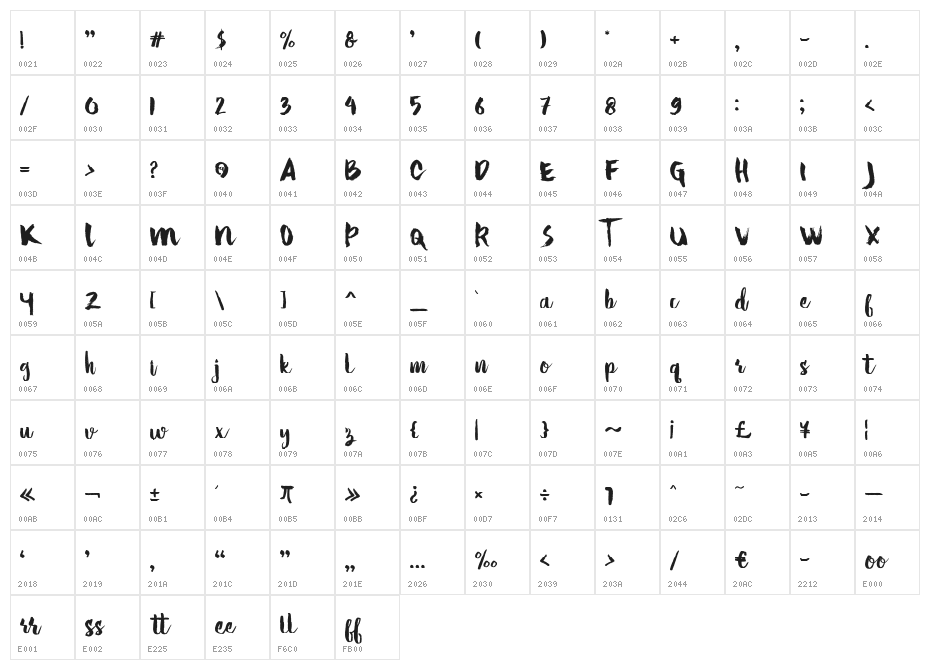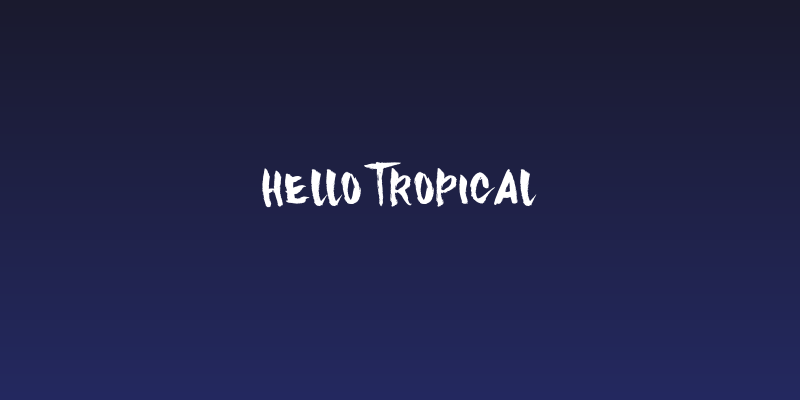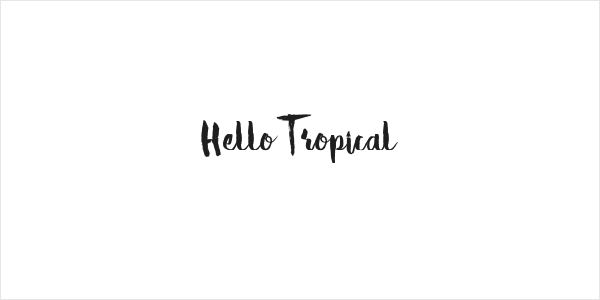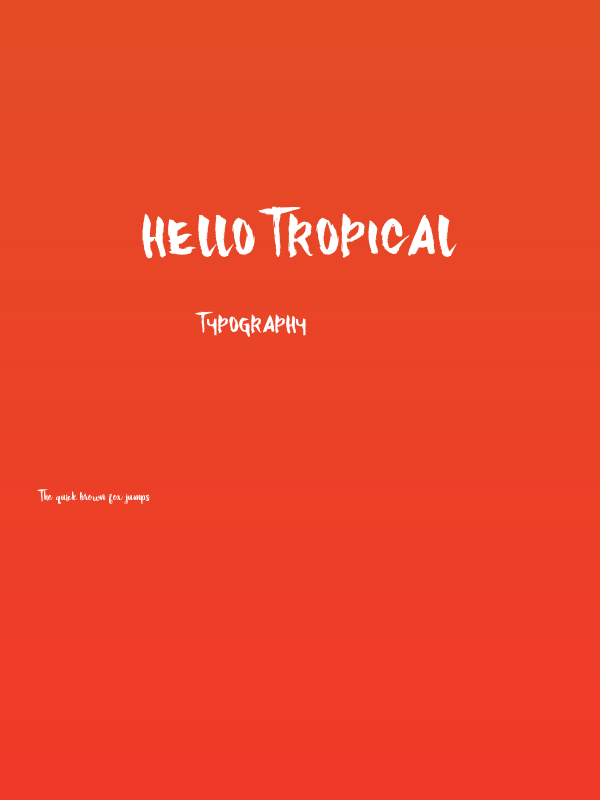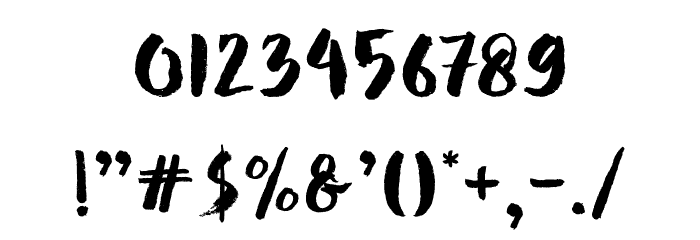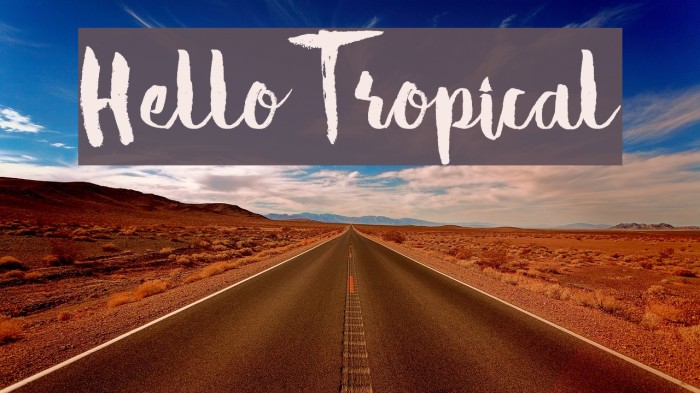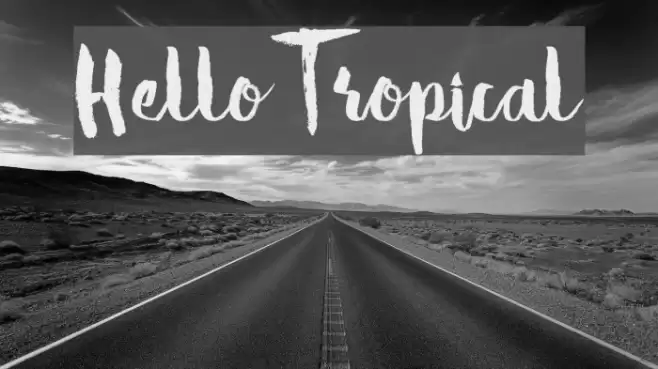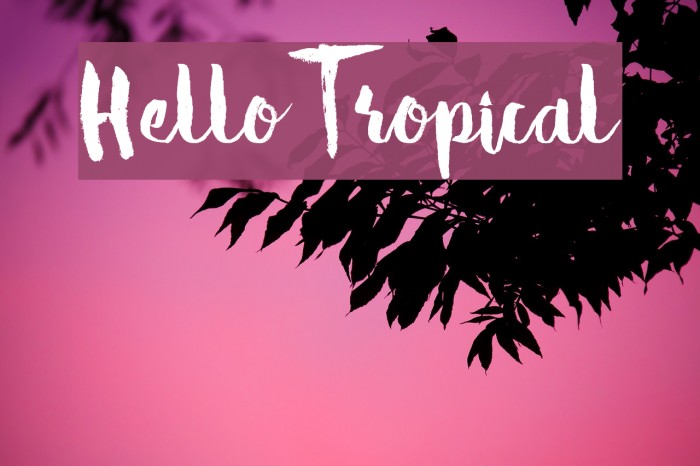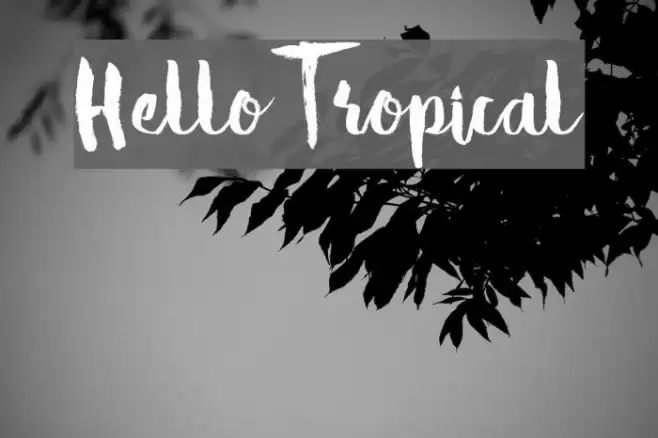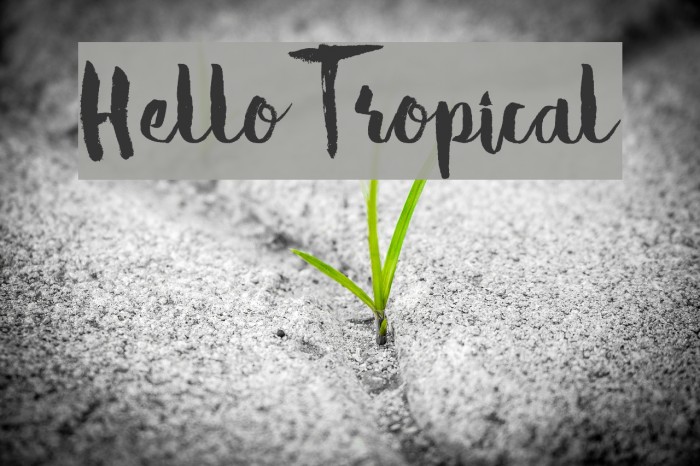
Hello Tropical Font
Hello Tropical Description
This font exudes a lively and energetic vibe, characterized by its bold and expressive brush strokes. The uppercase letters are robust and dynamic, while the lowercase letters maintain a playful and fluid form. The numbers and special characters follow the same energetic style, making them stand out with a unique flair. The overall appearance is reminiscent of hand-painted signage, offering a sense of creativity and spontaneity. Its irregular edges and varying stroke widths add to its handcrafted charm, making it perfect for projects that require a personal touch.
| Use Case | Logos, Headlines, Posters |
| Proposed Projects | Ideal for branding, posters, invitations, and any project that requires a vibrant, personal touch. |